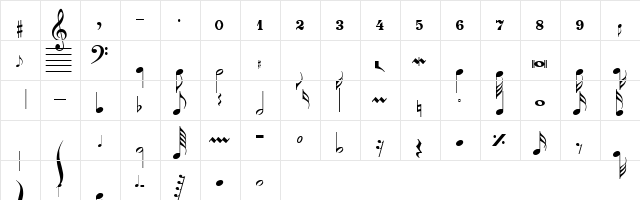
PG Music Font medium
Design Context for PG Music Font Typeface
PG Music Font is a composed and adaptable typeface that performs quietly and consistently across a wide range of design contexts.